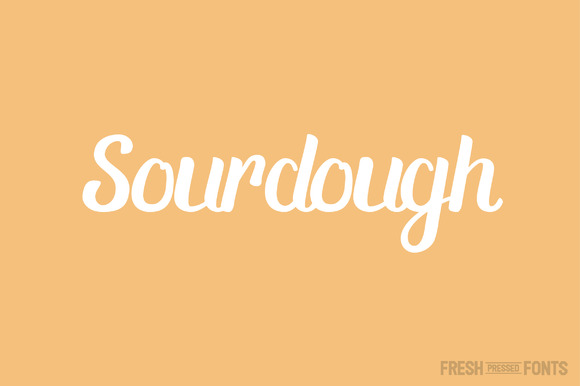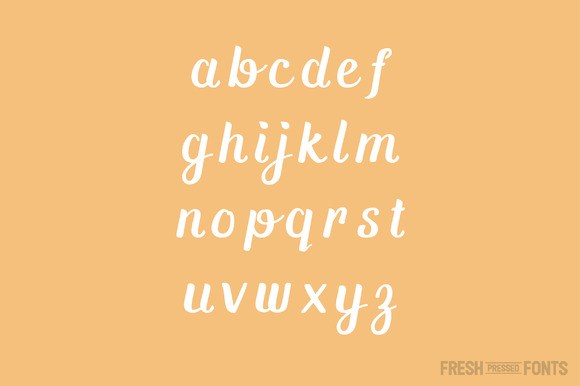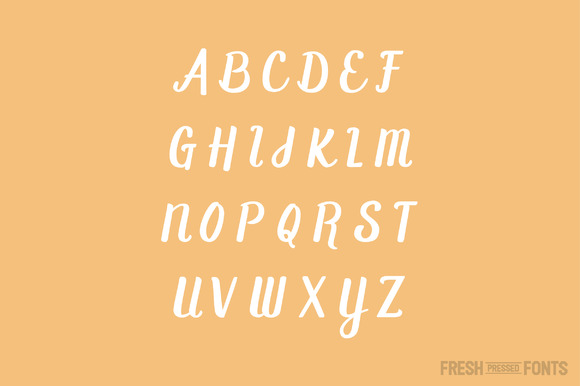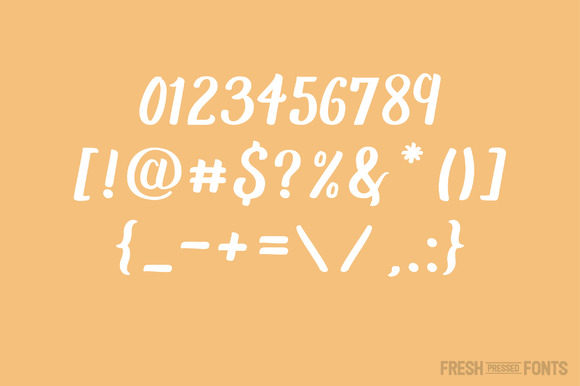
Sourdough Font
About Sourdough Font
Sourdough is a font inspired by stylized hand lettering and a contrast between thick and thin lines.
With over 200 glyphs total, it supports multiple languages and any punctuation and symbols you may need. Built in OTF, you will need a program that supports ligatures to achieve these results.